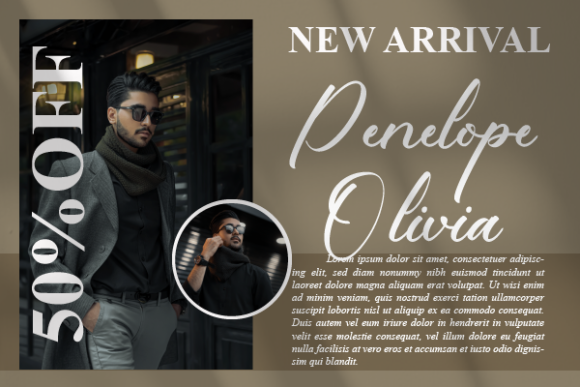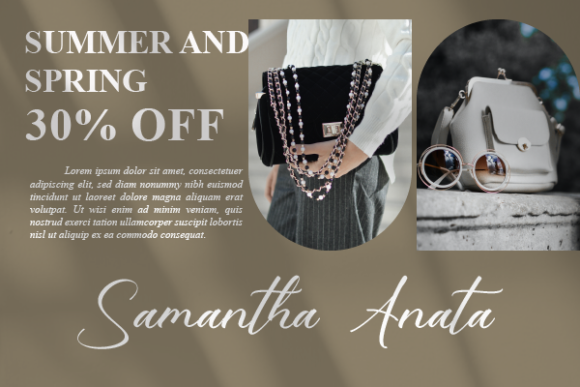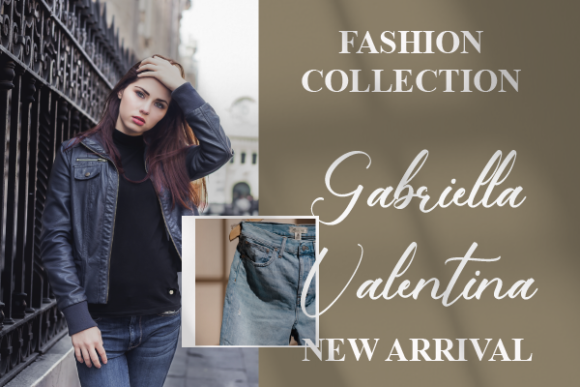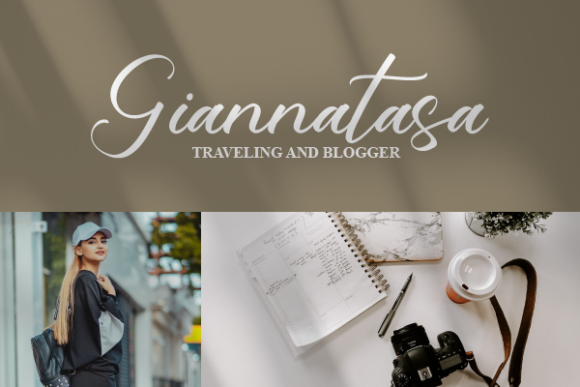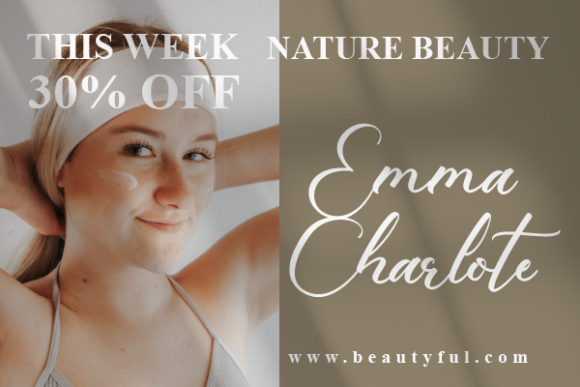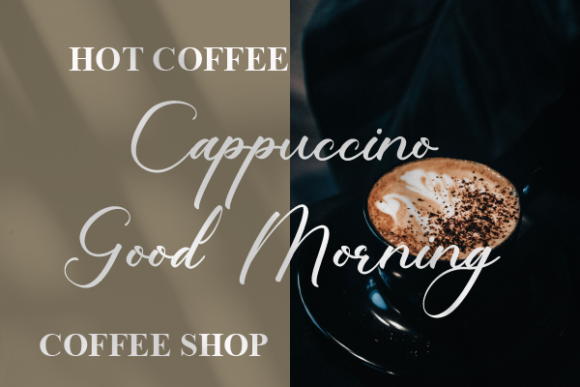
Alicia Helyn Font: Elevate Your Designs with Elegance and Flair
Are you a designer or crafter looking for a font that embodies elegance, delicacy, and a touch of sophistication? Look no further than the Alicia Helyn font. This beautiful, handwritten font is designed to add a touch of refinement to your creative projects, making it the perfect addition to your font collection.
The Beauty of Alicia Helyn Font
Alicia Helyn is a delicate, elegant, and flowing handwritten font that boasts beautiful and well-balanced characters. Its unique charm lies in its ability to match a wide pool of designs, making it an incredibly versatile font for various creative projects. Whether you’re working on a logo, branding materials, invitations, or any other design that requires a touch of sophistication, Alicia Helyn is sure to impress.
Key Features of Alicia Helyn Font
- Delicate and Elegant: Alicia Helyn’s design exudes elegance and delicacy, making it perfect for projects that require a refined touch.
- Handwritten with Flair: The font’s handwritten style adds a personal and unique touch to your designs, setting them apart from more traditional fonts.
- Well-Balanced Characters: Each character in the Alicia Helyn font is carefully crafted to ensure balance and harmony, making it a joy to work with.
- Versatile: Its classic yet modern design makes it suitable for a wide range of projects, from vintage-inspired designs to modern and minimalist creations.
How to Use Alicia Helyn Font in Your Designs
Adding Alicia Helyn to your design projects is easy and can instantly elevate your work. Here are a few ideas on how to incorporate this beautiful font:
- Logos and Branding: Use Alicia Helyn as a primary font for your logo or as a complementary font to add a touch of elegance to your brand’s identity.
- Invitations and Stationery: Create beautiful invitations, greeting cards, and stationery that exude sophistication and charm.
- Packaging and Product Design: Add a refined touch to your product packaging and labels, making your products stand out on store shelves.
- Digital and Print Media: Use Alicia Helyn in your digital and print media, such as in blog headers, social media graphics, and flyers, to add a touch of personality and elegance.
Tips for Getting the Most Out of Alicia Helyn Font
To maximize the impact of Alicia Helyn in your designs, consider the following tips:
- Experiment with Colors: Pair Alicia Helyn with a range of colors to find the perfect combination that enhances your design.
- Mix and Match Fonts: Combine Alicia Helyn with other fonts to create a unique and visually appealing design.
- Play with Sizes: Experiment with different font sizes to add depth and emphasis to your design.
- Keep it Simple: Don’t overcomplicate your design. Alicia Helyn’s elegance shines best when paired with a clean and simple design.
Alicia Helyn font is a beautiful addition to any designer’s or crafter’s toolkit. Its delicate, elegant, and flowing handwritten style makes it perfect for a wide range of creative projects. By incorporating Alicia Helyn into your designs, you’ll add a touch of sophistication and refinement that will set your work apart. So why wait? Add Alicia Helyn to your font collection today and watch your designs come alive!